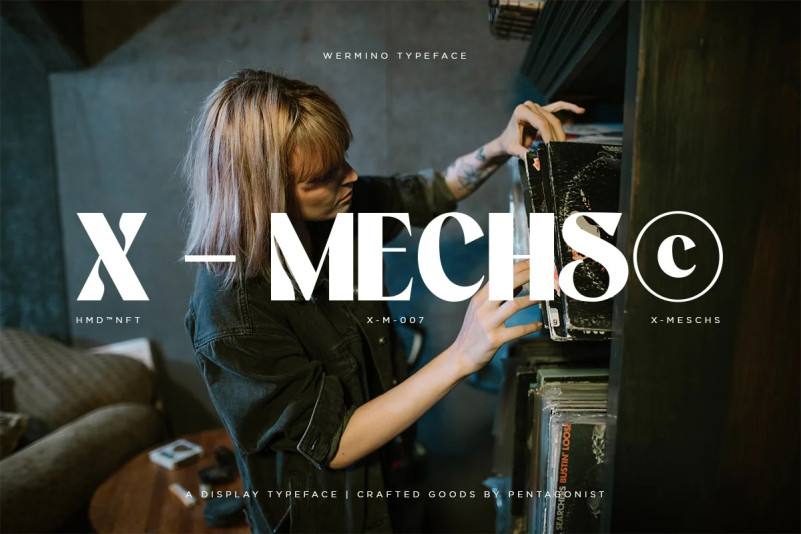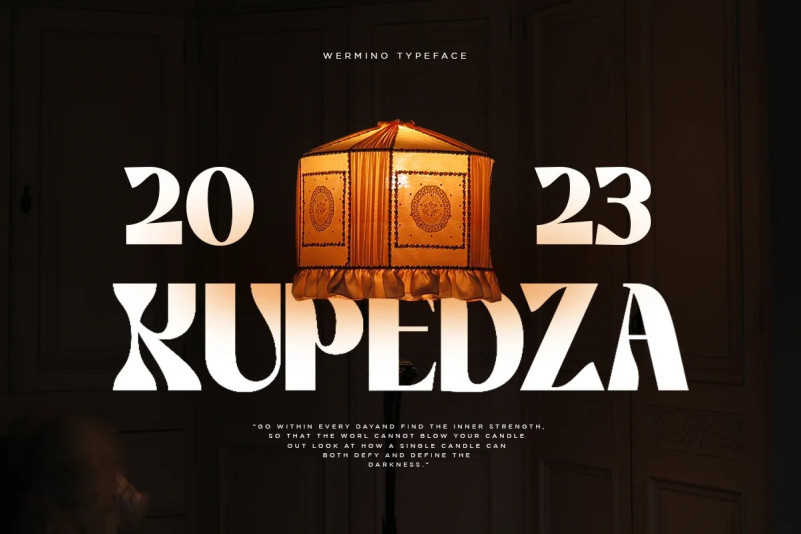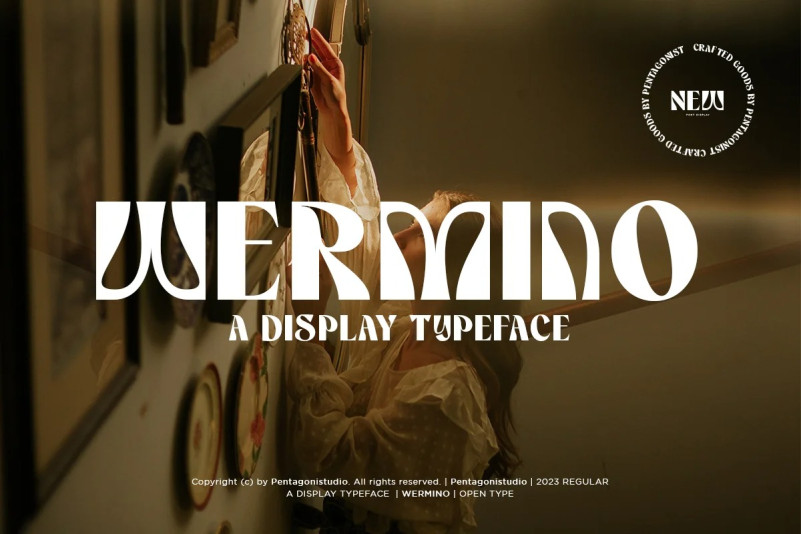
Wermino Font
Wermino Display Font is a display typeface inspired by vintage and vintage styles. This font is perfect for stickers, retro projects, craft projects, shirts, svg designs, procreate designs, branding, blogs, logos, invitations and more!